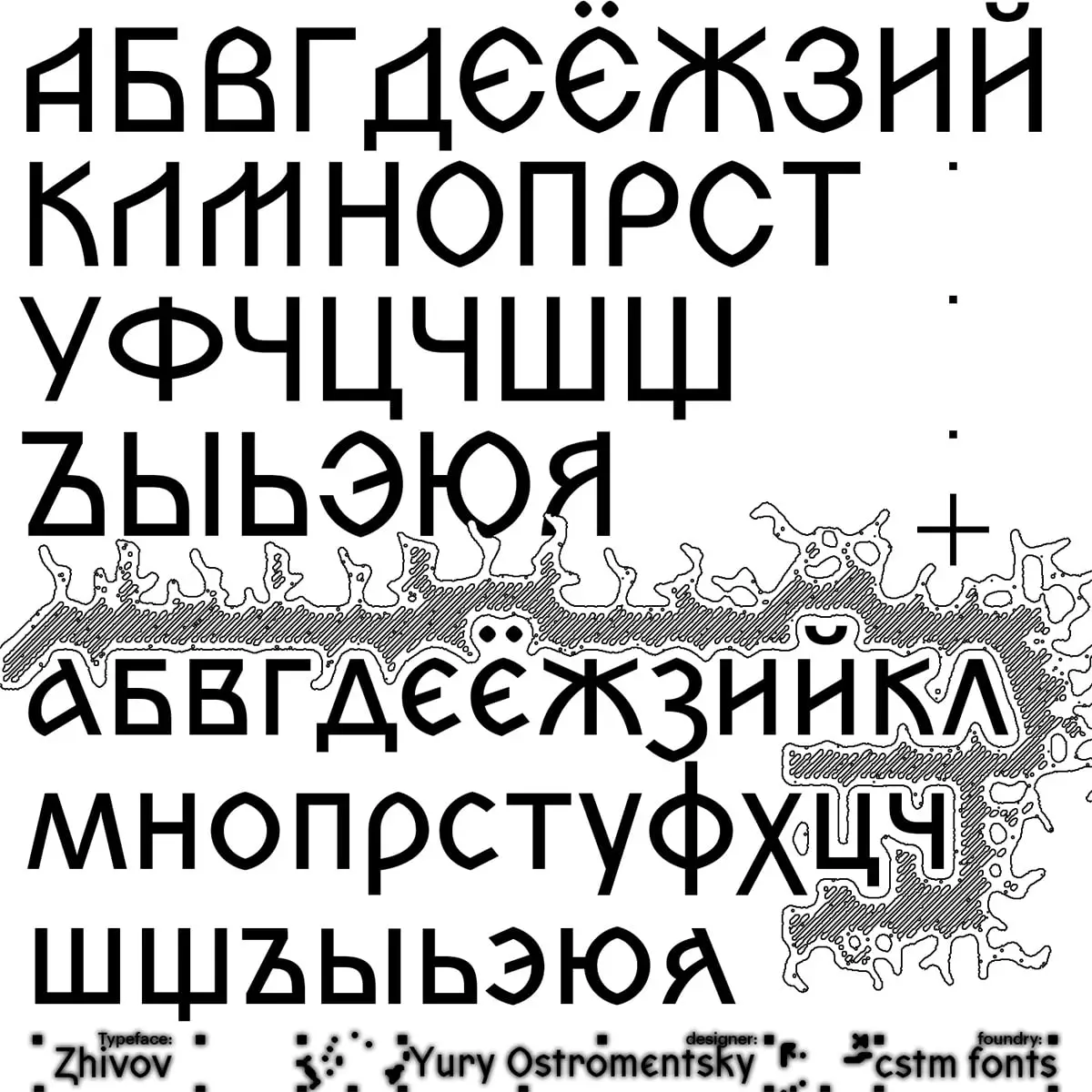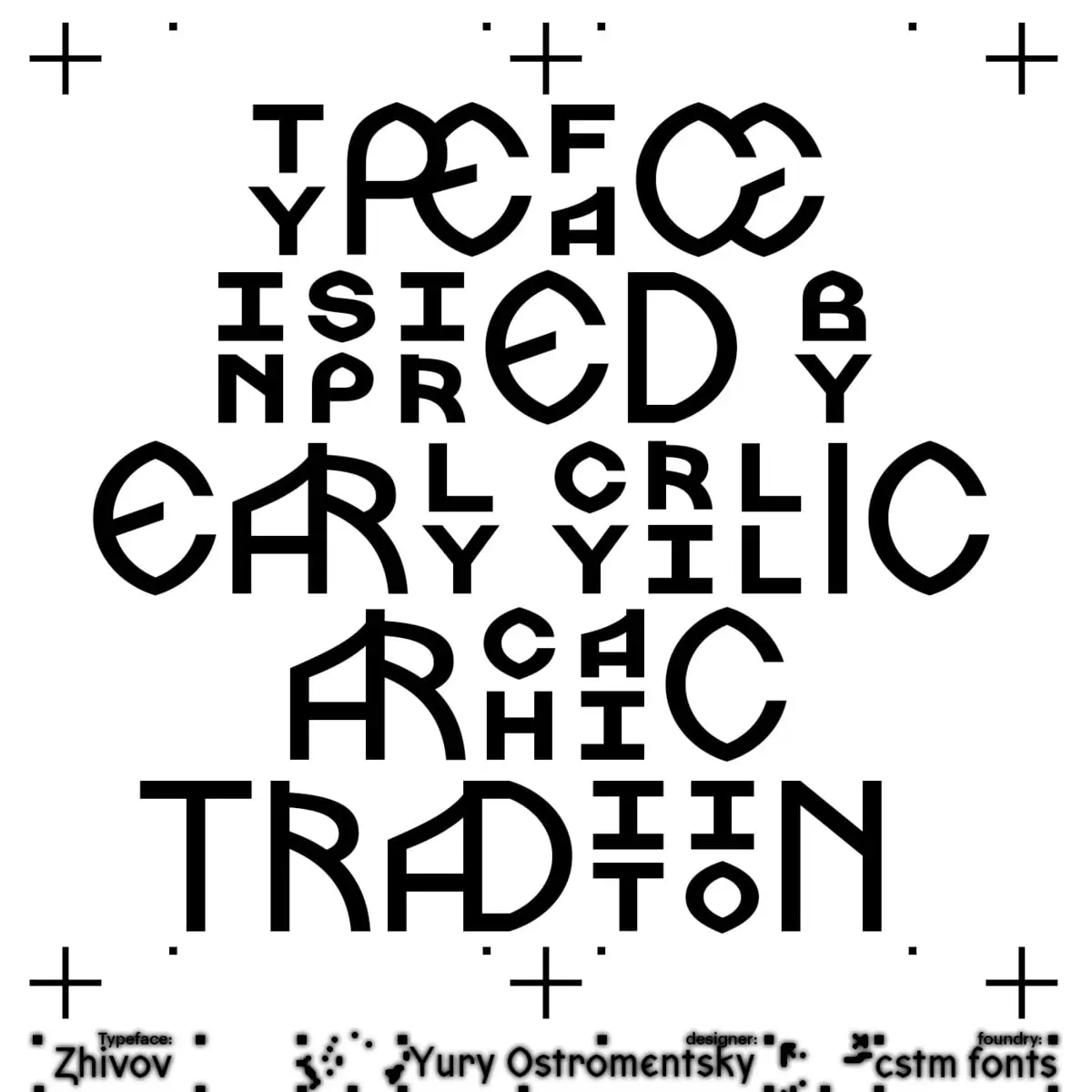
The Zhivov 0 2 Font is a distinctive typeface designed by Ilya Ruderman and Yury Ostromentsky, featuring a unique Cyrillic style that stands out in various applications. This font is perfect for those looking to incorporate a modern yet traditional feel into their designs.
- Styles: Regular, Bold
- Weights: Available in multiple weights for versatility
- Ideal for branding projects, logos, and marketing materials.
- Great for web and print designs, ensuring readability and aesthetic appeal.
- Use in UI design for a contemporary and engaging user experience.